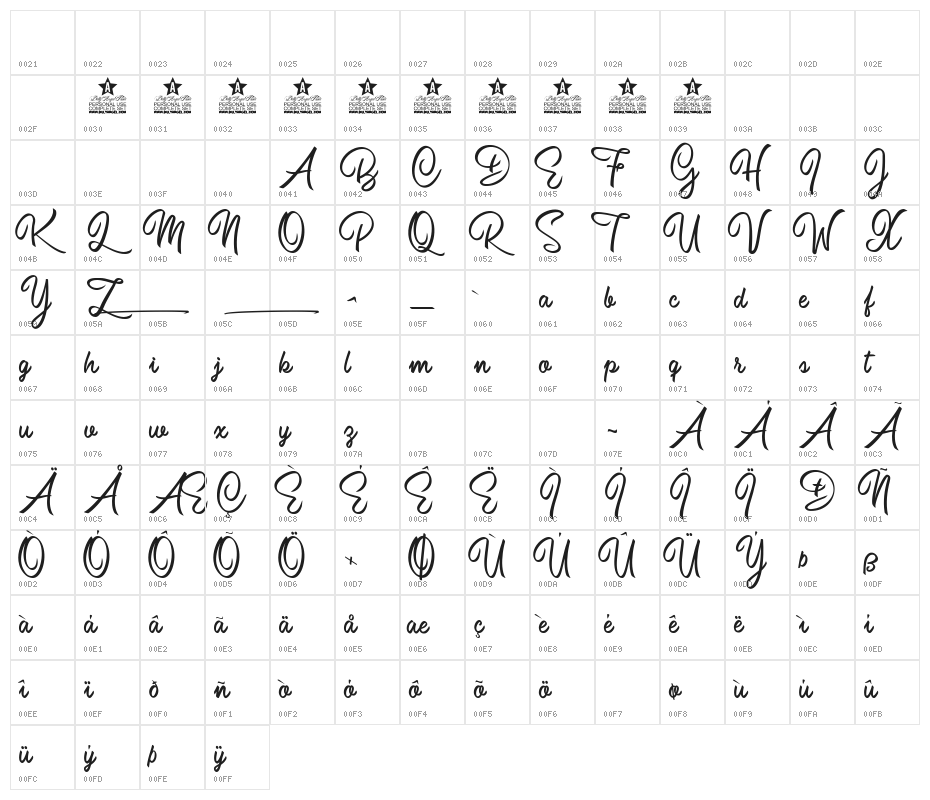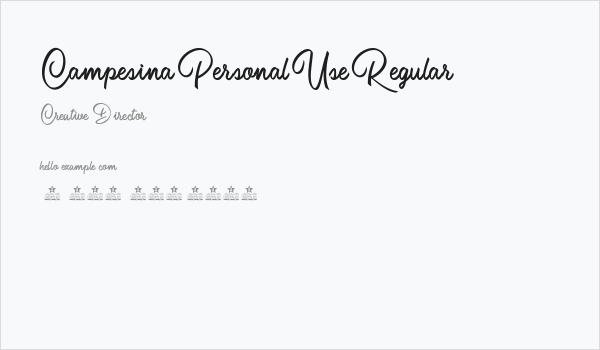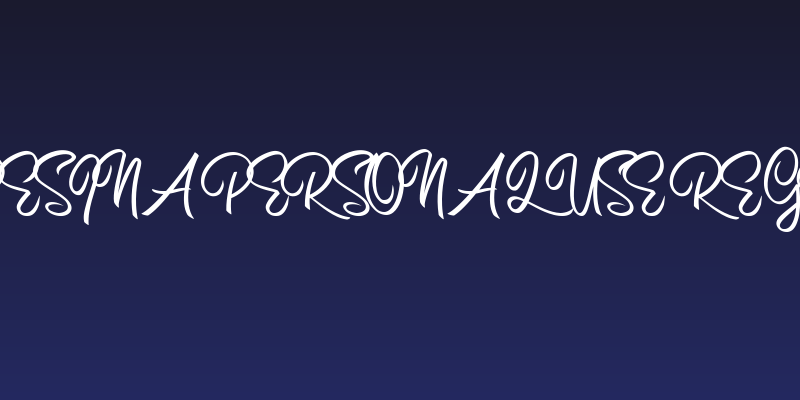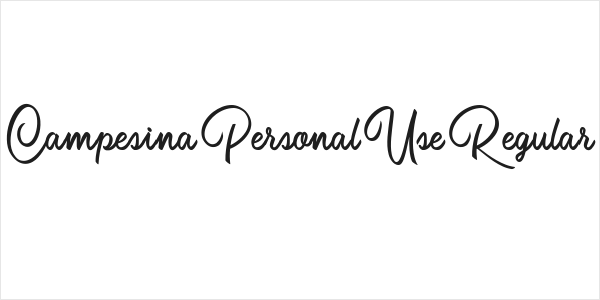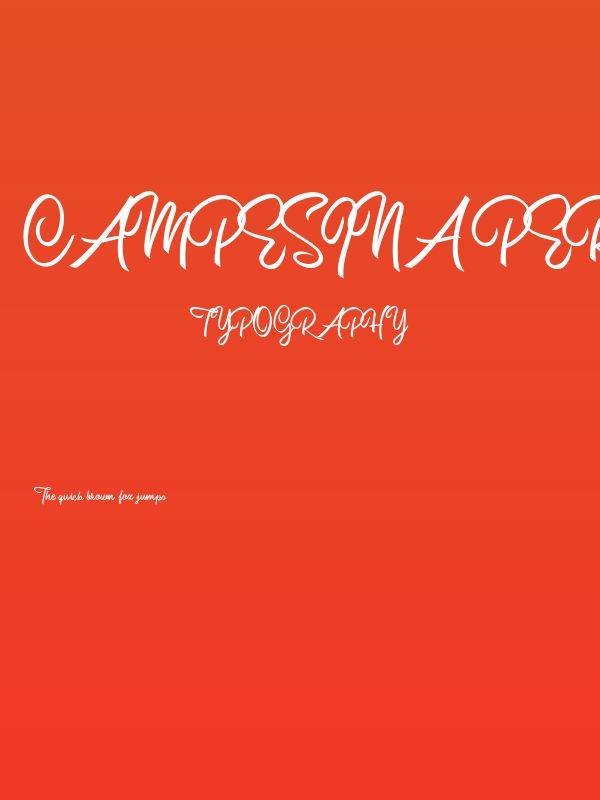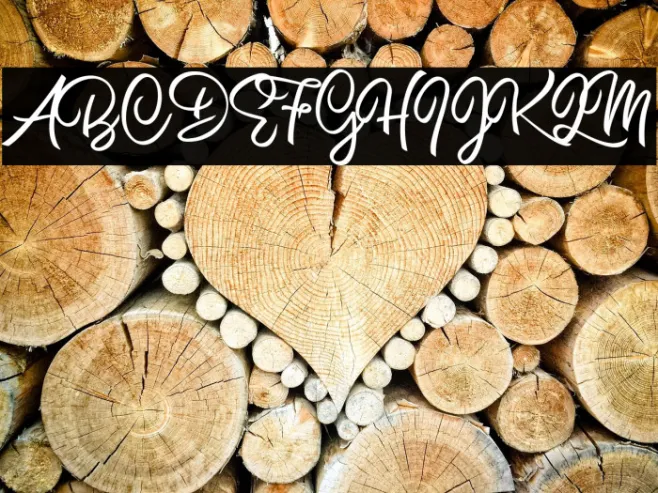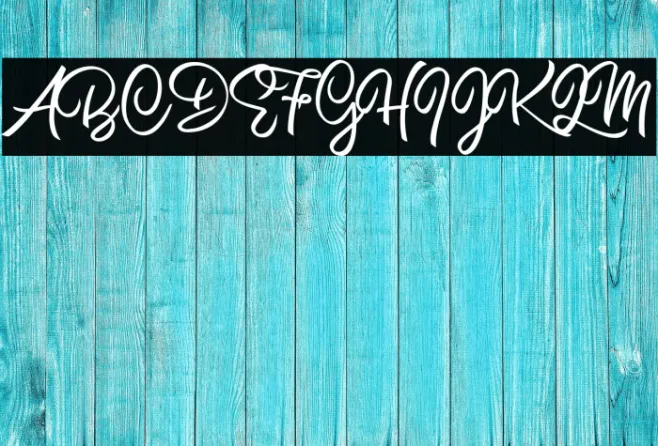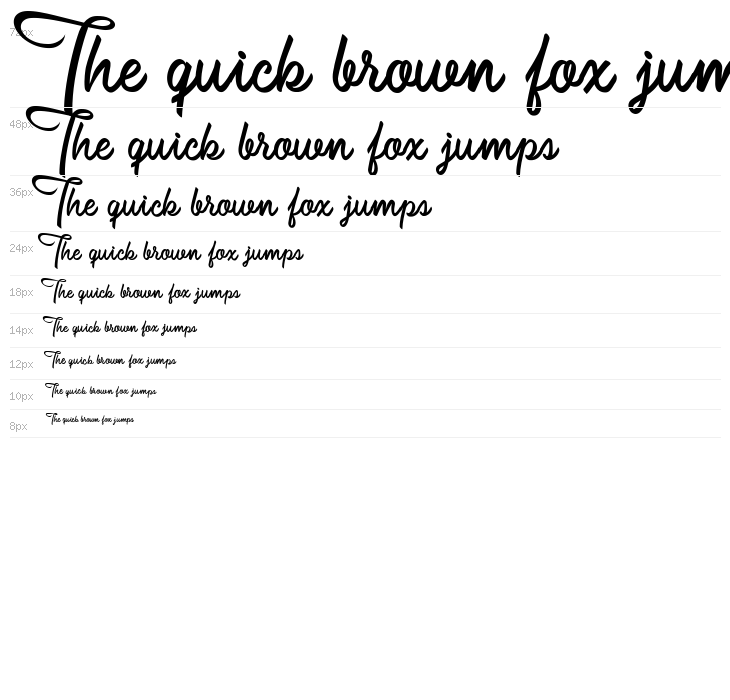
Campesina Personal Use Regular Font
Campesina Personal Use Regular Description
This font features a flowing, cursive style with elegant, sweeping strokes that give it a handwritten appearance. The uppercase letters are particularly ornate, with intricate loops and flourishes that add a touch of sophistication. The lowercase letters maintain a consistent style, with smooth curves and a slightly playful feel. The font is well-suited for projects that require a personal touch, such as invitations, greeting cards, or branding materials. Its decorative nature makes it stand out, while still being legible and versatile.
| Proposed Projects | Ideal for wedding invitations, greeting cards, branding, and decorative signage. |